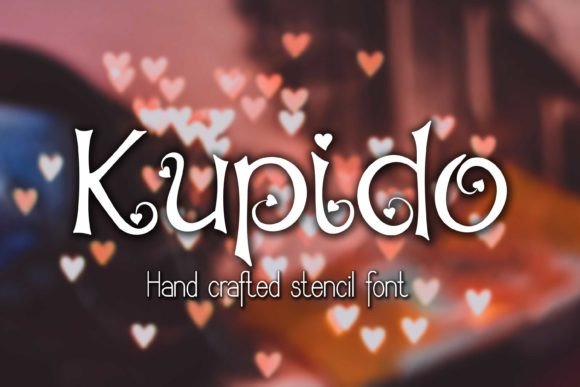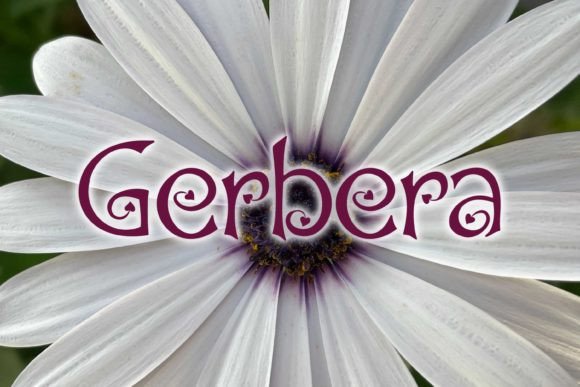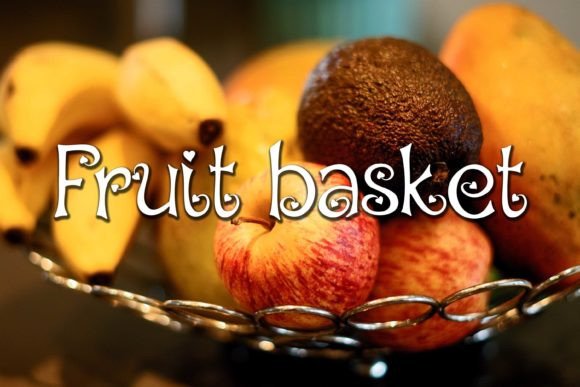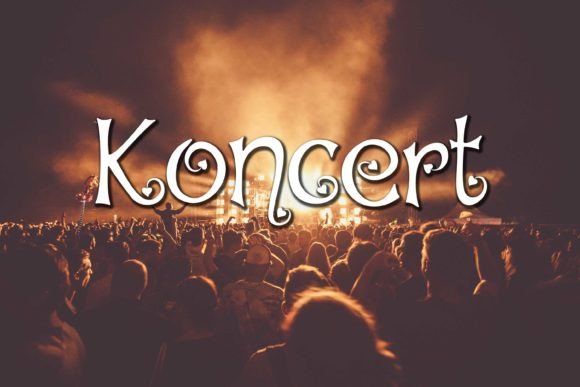
Kupido Font
About the Kupido Font
Get ready to be inspired by Kupido Font, a fresh and dynamic typeface for modern creators. Kupido is a heart-decorated stencil font without closed loops on the characters.
Kupido’s playful, yet bold stencil style is ideal for headlines, short taglines, and branding elements where a strong visual impact is desired. It works exceptionally well in posters, packaging for youthful products, or social media graphics. However, its highly decorative nature makes it unsuitable for body text or UI elements requiring high readability. The open forms might hinder legibility in smaller sizes or extended text blocks.
For optimal visual harmony, pair Kupido with clean sans-serif fonts like Montserrat or Open Sans for a balanced contrast. A geometric sans-serif would further accentuate Kupido’s stencil quality. For a more vintage or romantic touch, consider pairing it with a delicate serif font such as Playfair Display. Avoid pairing it with other highly decorative fonts to prevent visual clutter.
Kupido’s overall personality is energetic and friendly, conveying a sense of fun and approachability. Its unique character makes it a strong choice for brands targeting a young, vibrant audience.
Kupido Font Example